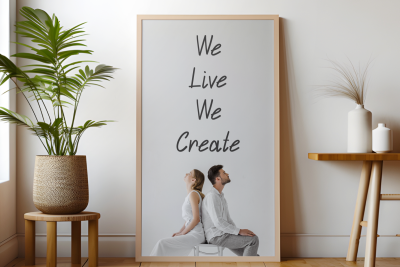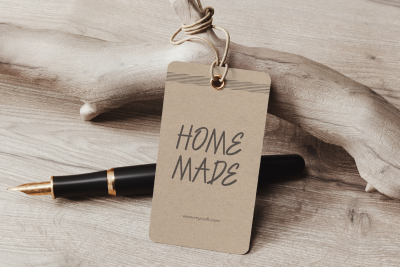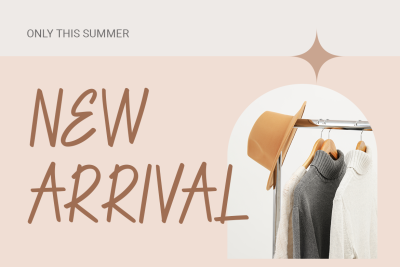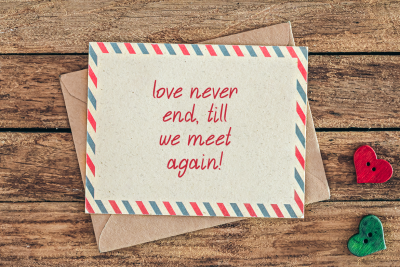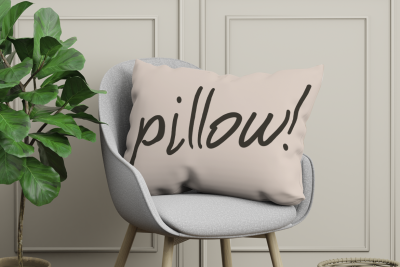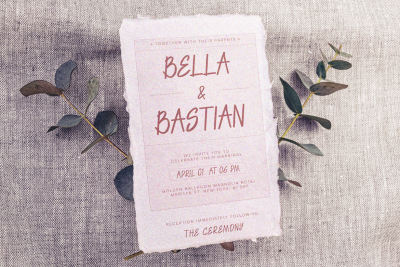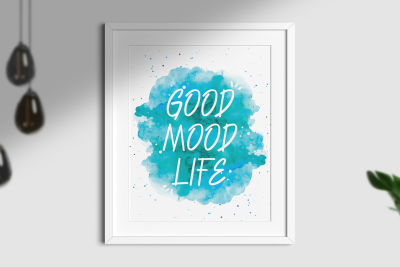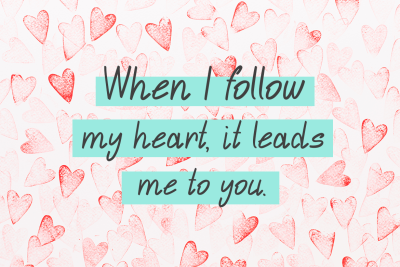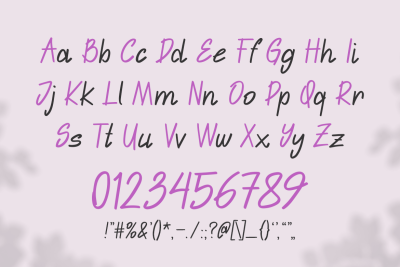
Handwriting Font AQIZA is a modern and expressive handwritten typeface. It effortlessly adds charm and personality to any design. With fluid strokes and elegant curves, AQIZA beautifully blends sophistication and playfulness. Therefore, it is perfect for various creative projects. Whether you need elegance or a casual handwritten feel, this font adapts effortlessly. As a result, it ensures your designs stand out with a personal and authentic look.
Designed to mimic natural handwriting, AQIZA maintains readability while offering style. Its smooth transitions and balanced spacing make it suitable for both digital and print applications. Furthermore, its organic letterforms provide an inviting and approachable aesthetic. Consequently, this makes it an excellent choice for those who want to convey warmth and creativity in their work.
Handwriting Font AQIZA Suitable For
Handwriting Font AQIZA is ideal for designers, business owners, and creatives wanting a handwritten charm in their projects. Specifically, this font is particularly well-suited for:
- Branding and Logo Design โ It creates a signature-style identity for boutique businesses, personal brands, and lifestyle products.
- Wedding Invitations and Stationery โ It adds an elegant and intimate touch to wedding cards, event invitations, and thank-you notes.
- Social Media and Content Creators โ Perfect for Instagram posts, Pinterest graphics, and YouTube thumbnails with a stylish handwritten element.
- Product Packaging and Labels โ Ideally suited for organic products, handmade goods, and artisanal packaging, offering a personal and crafted feel.
- Editorial and Publishing Design โ It works beautifully for magazine covers, book titles, and article headers with a modern handwritten aesthetic.
- Personalized Merchandise โ Enhances prints, greeting cards, apparel, and DIY projects with a sophisticated yet friendly touch.
Handwriting Font AQIZA brings elegance, warmth, and authenticity to any project. As a result, it is a must-have for those looking to elevate typography. Whether designing for business, social media, or personal projects, this font helps create expressive and engaging designs. Ultimately, let your creativity shine with Handwriting Font AQIZA and give your work a distinctive and memorable look.